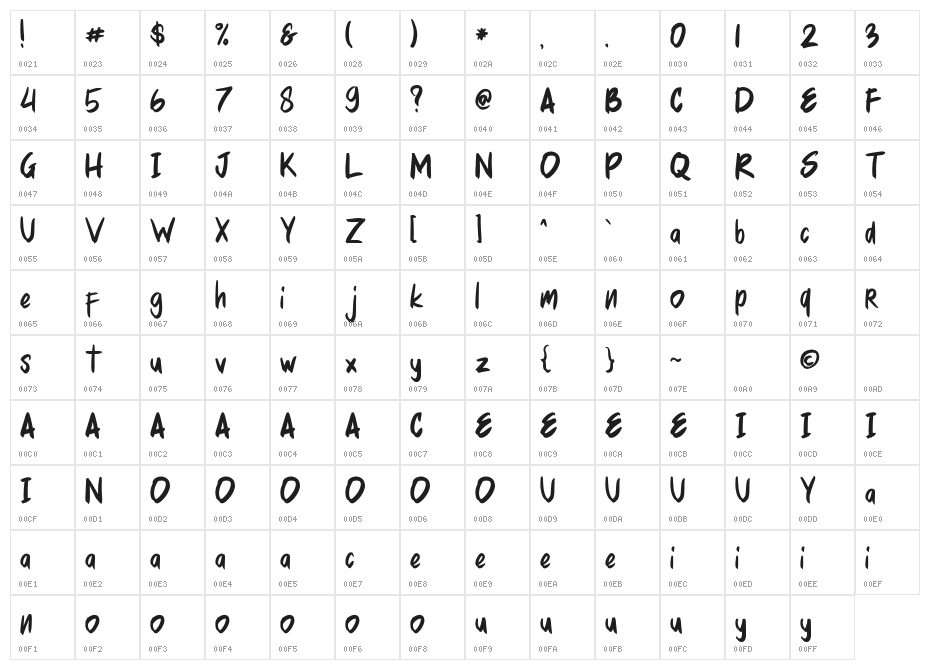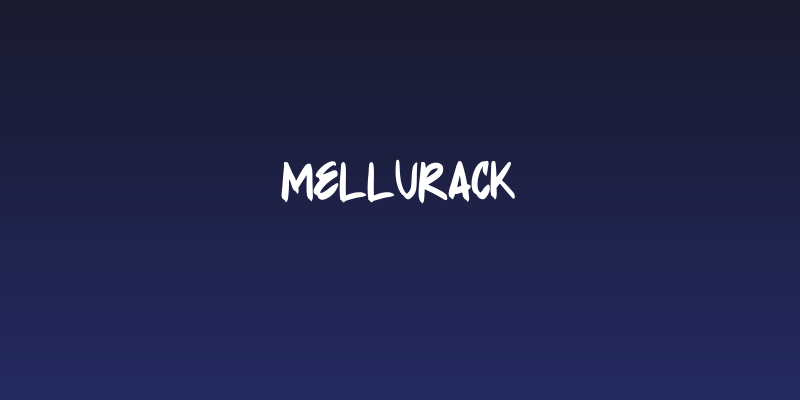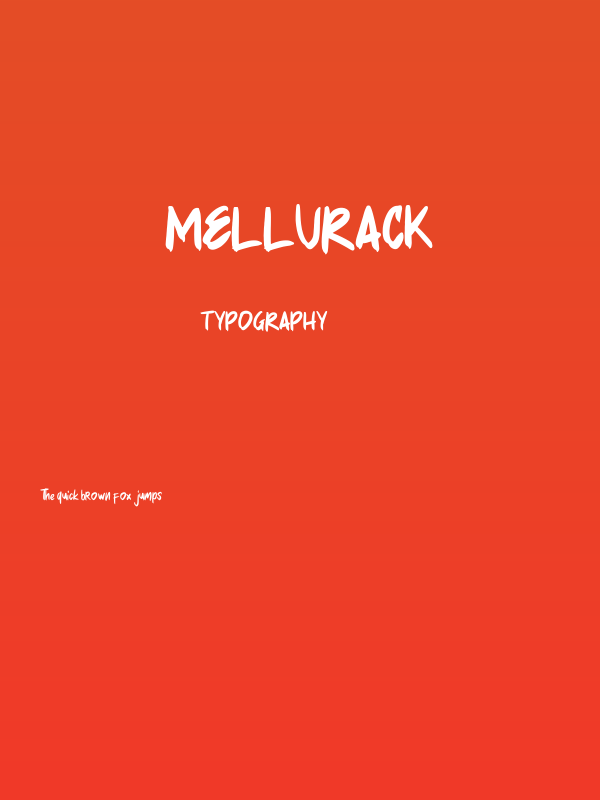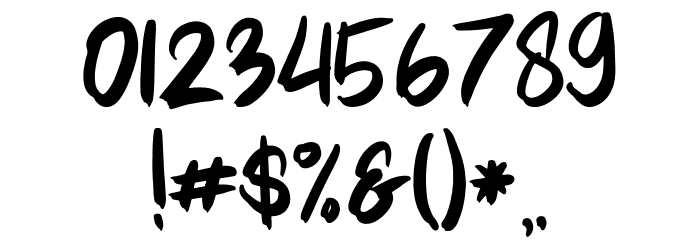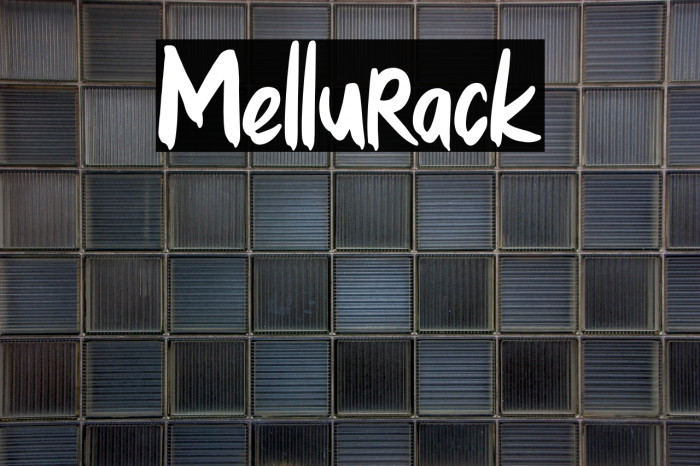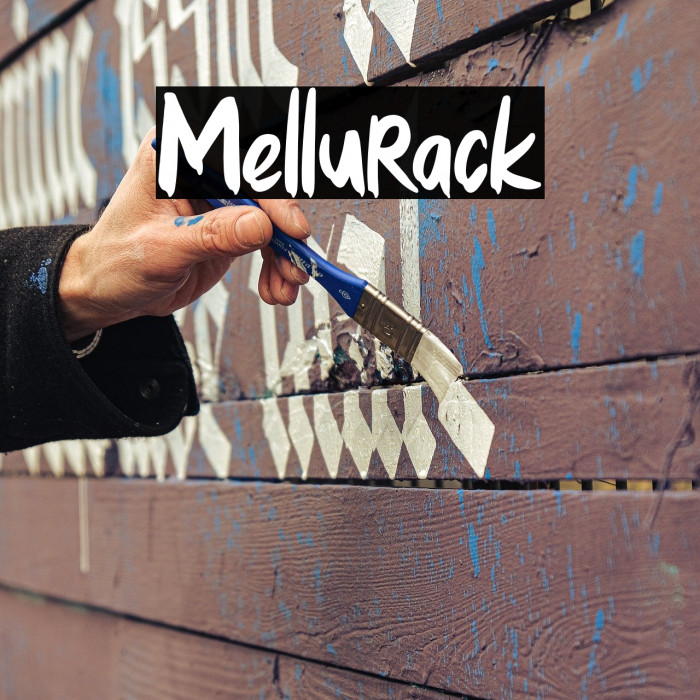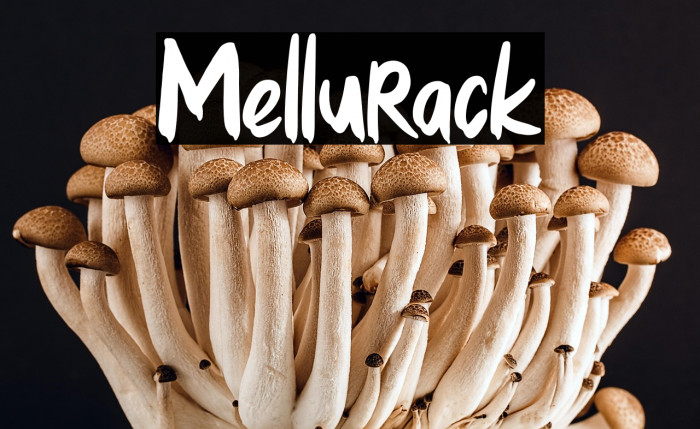
Mellurack Font
Mellurack Description
This font features a bold and energetic handwritten style, characterized by its dynamic and slightly irregular strokes. The letters are crafted with a sense of movement, giving them a lively and informal appearance. The uppercase and lowercase letters maintain a consistent flow, while the numerals and special characters complement the overall aesthetic. This font is perfect for projects that require a personal touch or a casual, friendly vibe. Its unique style makes it stand out, making it suitable for creative and artistic applications.
| Overall Style | Casual, Artistic |
| Proposed Projects | Ideal for greeting cards, posters, branding, and social media graphics. |